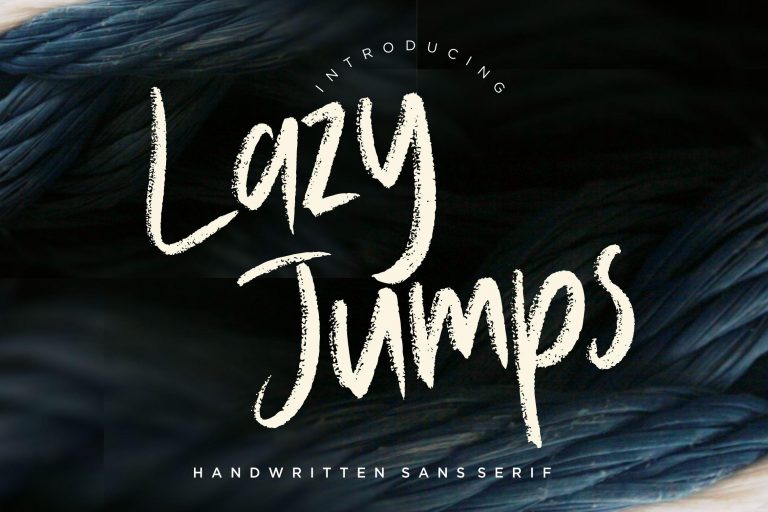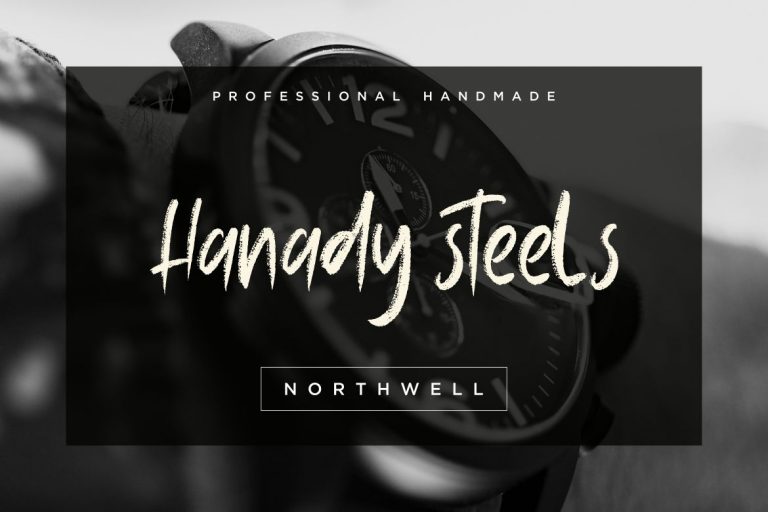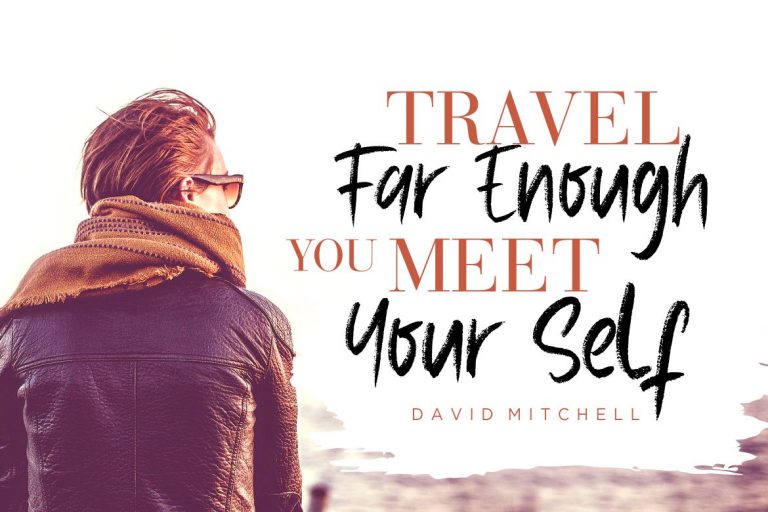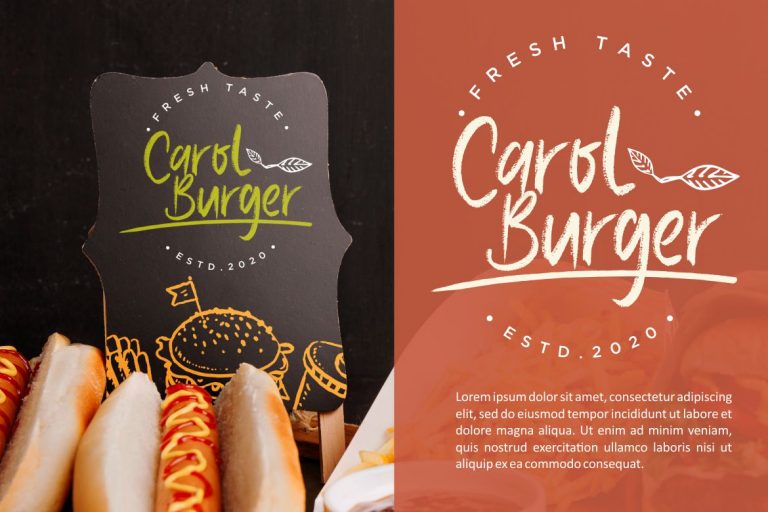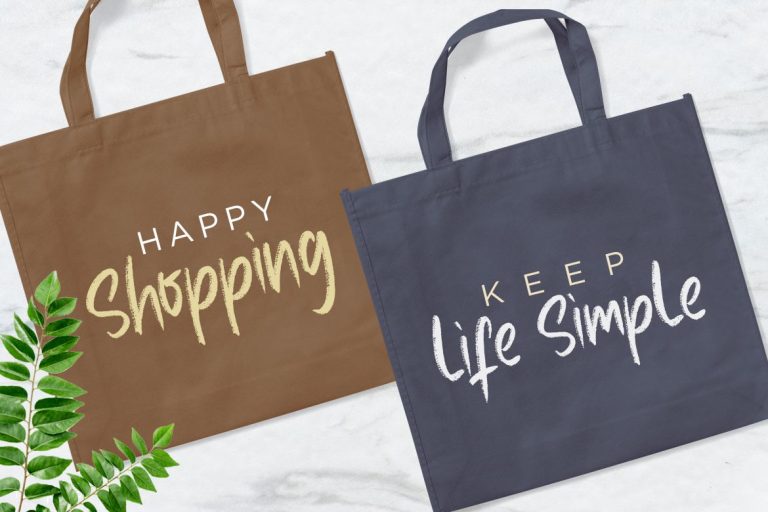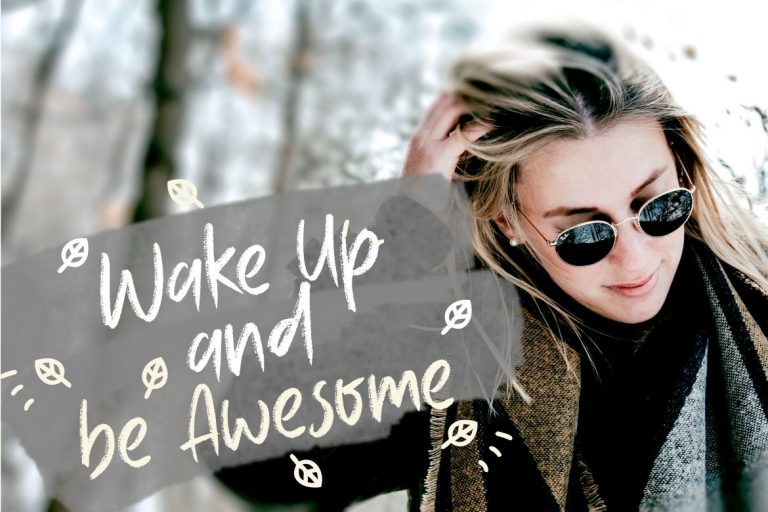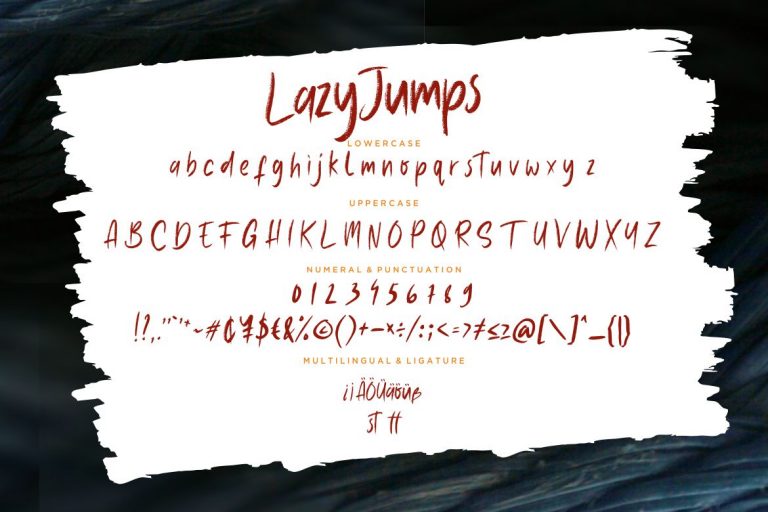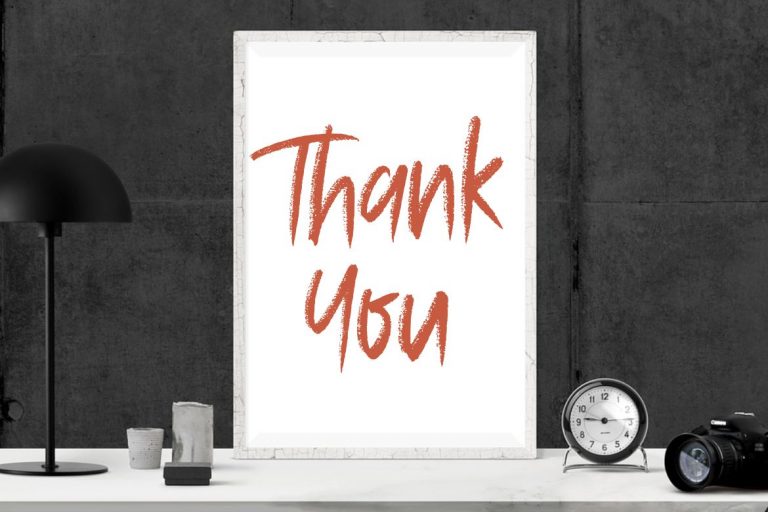
Lazy Jumps Sans Serif
Lazy Jumps is casual full handwritten sans serif font with natural movement.
Lazy Jumps is perfect for branding projects, logo, wedding designs, social media posts, advertisements, product packaging, product designs, label, photography, watermark, invitation, stationery and any projects that need handwriting taste.
- Fonts include multilingual support for; ä ö ü Ä Ö Ü ß ¿ ¡